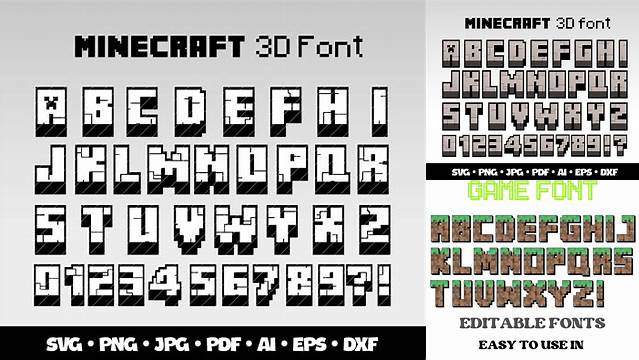
Minecraft Fonts: Customize Your Game Text
Are you looking to spice up your Minecraft experience? One of the coolest ways to personalize your game is by changing the fonts. Fonts in Minecraft might seem like a small detail, but they can drastically alter the overall feel and aesthetic of your gameplay. Whether you're aiming for a retro vibe, a modern twist, or something completely unique, understanding how to change fonts in Minecraft opens up a whole new world of customization. So, guys, let's dive into the nitty-gritty of Minecraft fonts and explore how you can make your game truly your own.
Why Change Minecraft Fonts?
Before we jump into the how-to, let's talk about the why. Why bother changing the default Minecraft font? Well, there are several compelling reasons. First and foremost, it's about personalization. Minecraft is a sandbox game, and a big part of the fun is making it your own. Customizing the fonts allows you to inject your personality into the game, creating an experience that resonates with your individual style. Imagine booting up Minecraft and being greeted by a font that perfectly matches your custom texture pack or mod setup. It's a small touch that makes a big difference.
Secondly, changing Minecraft fonts can improve readability. The default font, while charmingly pixelated, isn't always the easiest to read, especially on larger screens or at higher resolutions. Switching to a clearer, more legible font can enhance your gameplay experience, reducing eye strain and ensuring you don't miss important information in chat or menus. This is particularly crucial for players who spend a lot of time in the game or those who stream and want to ensure their viewers can easily follow along. Think of it as giving your eyes a little vacation while you're busy battling creepers or building your dream castle.
Finally, let's not forget the aesthetic appeal. Different fonts evoke different moods and styles. A sleek, modern font can give your game a contemporary feel, while a handwritten-style font can add a touch of whimsy and charm. Experimenting with various fonts allows you to create a visual atmosphere that matches your gameplay style and preferences. For example, if you're building a futuristic city, a minimalist font might be the perfect complement. On the other hand, if you're exploring a medieval-themed world, a more ornate, old-English font could enhance the immersion. The possibilities are endless, and that's what makes font customization so exciting.
Understanding Minecraft Font Files
Okay, so you're convinced that changing fonts is a worthwhile endeavor. But how does Minecraft handle fonts, and what do you need to know about Minecraft font files? Let's break it down. Minecraft uses a specific type of font file known as the Bitmap Font. Unlike vector fonts, which are scalable and can be resized without losing quality, bitmap fonts are composed of individual pixels. This means that each character in the font is essentially a tiny image. While this might sound limiting, it's what gives Minecraft its distinctive pixelated look. The main file format you'll encounter when dealing with Minecraft fonts is the .png image file. These PNG files contain the graphical representation of each character, symbol, and number used in the game.
Within the .png file, the characters are arranged in a grid-like pattern. Each character occupies a specific cell in the grid, and Minecraft uses this arrangement to map the character codes to their visual representations. When you change the font, you're essentially replacing this .png file with a modified version or a completely new one. It’s like swapping out the alphabet chart in a classroom – the underlying language stays the same, but the way the letters look is different. This system allows for a high degree of customization, as you can design your own fonts from scratch or modify existing ones to suit your taste. Imagine creating a font that uses symbols instead of letters, or one that incorporates elements from your favorite fantasy novel. The only limit is your imagination (and your pixel art skills!).
It's crucial to understand the structure of these .png files if you plan on creating your own fonts or making significant modifications. The spacing and alignment of characters within the grid are critical for proper rendering in the game. If the characters are misaligned or too close together, the text in Minecraft might appear jumbled or unreadable. There are various tools and resources available online that can help you create and edit bitmap fonts, so don't feel intimidated if you're new to this. With a little practice, you'll be crafting custom fonts that perfectly capture your vision.
Step-by-Step Guide to Changing Minecraft Fonts
Now for the fun part: actually changing the font in Minecraft! Don't worry, it's not as daunting as it might sound. Here’s a step-by-step guide to get you started. First, you'll need to find a custom font that you like. There are tons of resources online where you can download Minecraft fonts. Websites like Planet Minecraft, CurseForge, and various Minecraft-specific forums are great places to start your search. When browsing fonts, pay attention to the style, readability, and overall aesthetic. Think about how the font will look in different parts of the game, such as the chat, menus, and item names. It's also a good idea to download a few different fonts so you can try them out and see which one you like best. It’s like trying on different outfits – you want to find the one that fits just right.
Once you've downloaded a font, you'll typically receive a .zip file containing the font files. These files usually include a .png image file (the actual font) and sometimes a .txt file with information about the font. The next step is to locate your Minecraft resource packs folder. This is where you'll be placing the font file. The location of this folder varies depending on your operating system. On Windows, it's usually located in %appdata%\.minecraft\resourcepacks
. On macOS, you can find it in ~/Library/Application Support/minecraft/resourcepacks
. If you're having trouble finding the folder, you can always search for it in your file explorer or use the in-game resource pack menu to open the folder directly. Think of it as finding the secret entrance to your Minecraft customization lair.
Whether you're a seasoned Minecraft player or just starting out, experimenting with fonts is a fun and rewarding way to customize your game. So go ahead, browse those font websites, download a few favorites, and give your Minecraft a fresh new look. And if you're feeling creative, why not try designing your own font? It's a fantastic way to unleash your inner artist and create something truly unique. The world of Minecraft is your canvas, and fonts are just one of the many tools you can use to bring your vision to life. Happy crafting, and may your Minecraft adventures be filled with stylish text and pixelated fun!